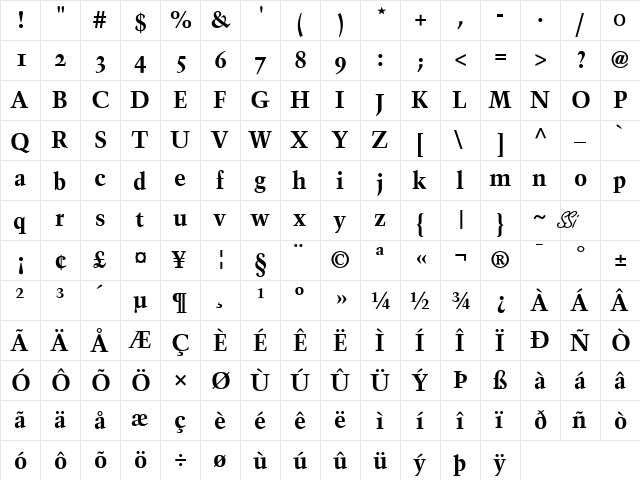
Blackford OldStyle SSi Bold Old Style Figures
Design Context for Blackford OldStyle SSi Typeface
Blackford OldStyle SSi brings classic typographic sensibility to the table — its serifs and measured letterforms reflect centuries of print heritage. Its bold stroke weight gives it real presence on the page.